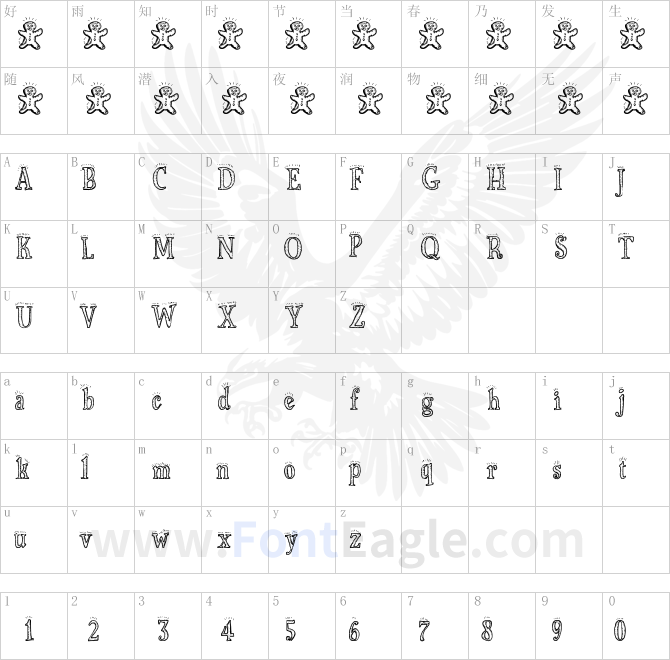
Biscuit-Made is a great font, widely used in graphic design, single-page menu design, poster design and other fields, and is deeply loved by designers.Biscuit-Made download.